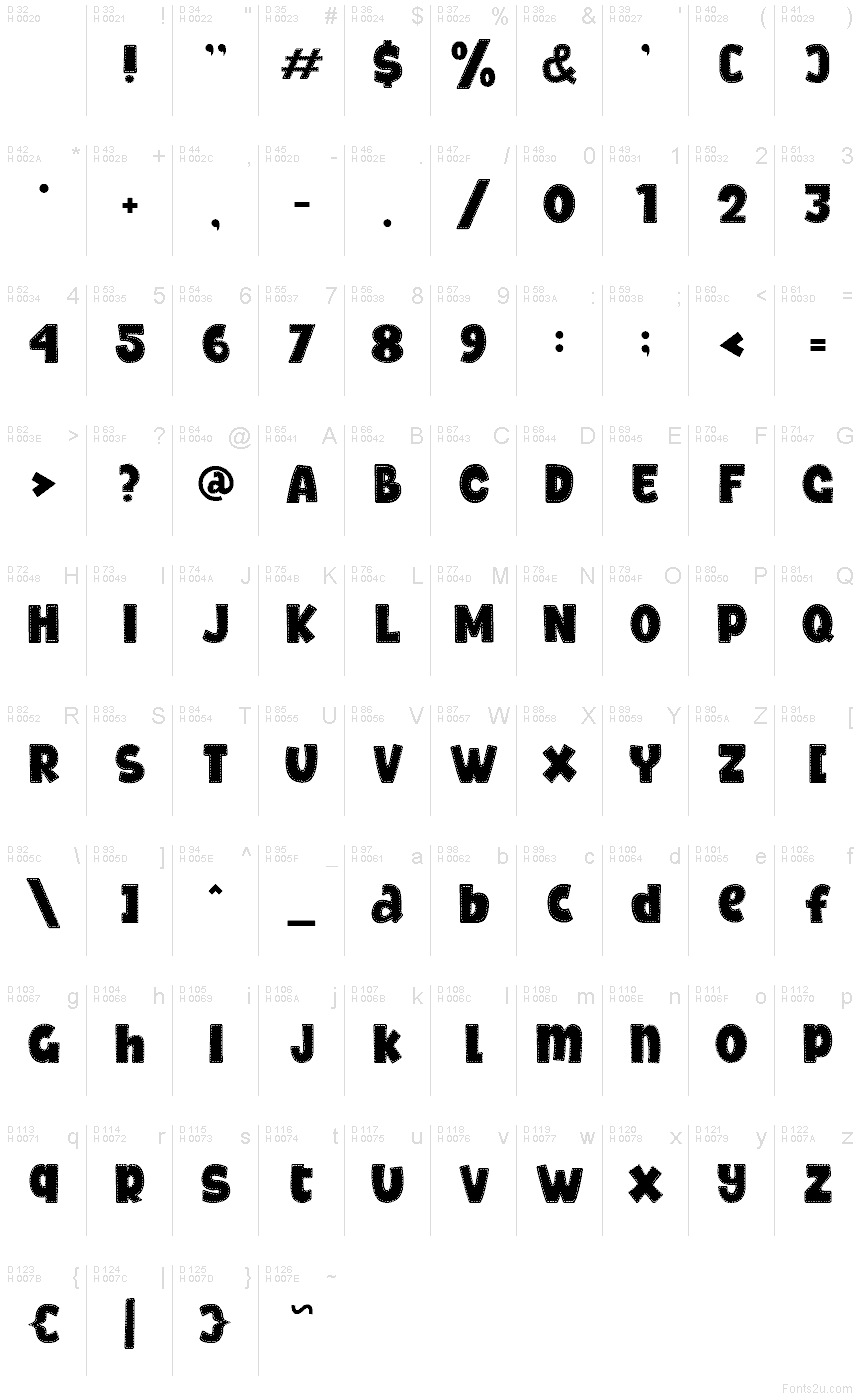
Study Symbol Stitch font by PutraCetol Studio is a free decorative display font with an abstract quality and unique approach. Uneven lengths and slim widths set both arms and legs apart, bringing freshness to the viewer. The curved alphabetical character designs, similar in contrast, differ only at specific points, all of which add to the professional look of this bold font.
The vintage feel and dotted textured body make Study Symbol Stitch ideal for headlines or as part of signages for shops. It can be added to posters, stationery projects like business cards or invitations. Users can combine it within branding designs with logos or labels, food packaging designs, magazines, apparel items, website design ideas, etc.